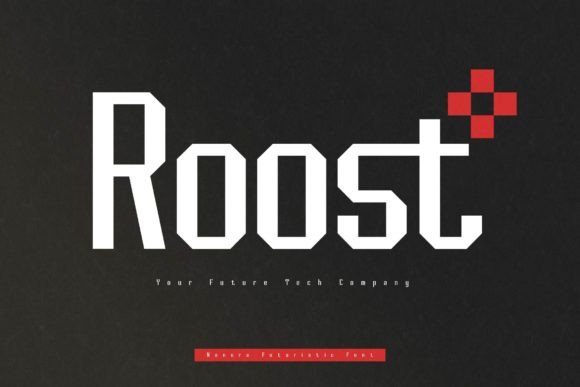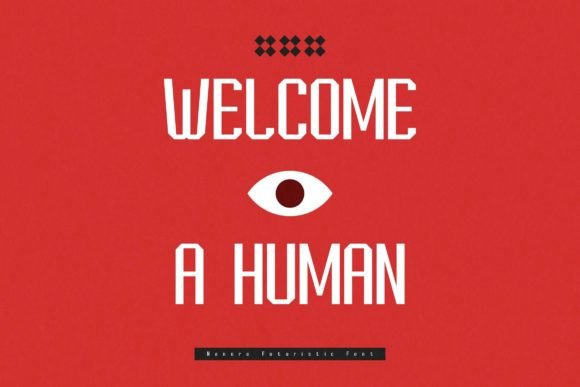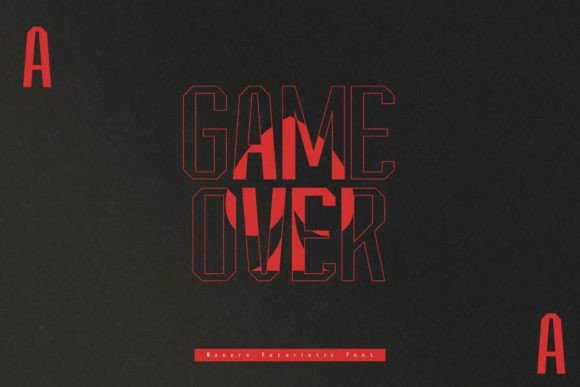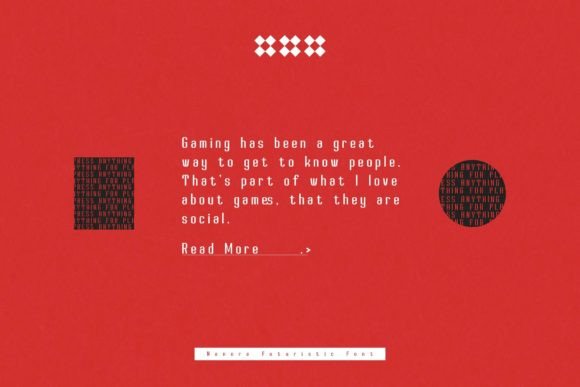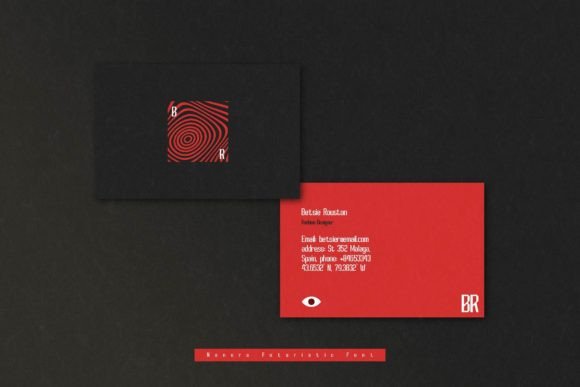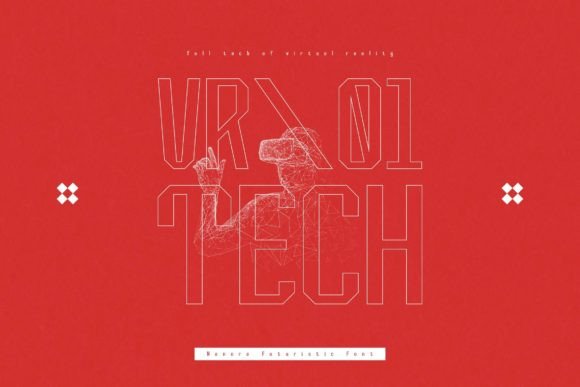
Introduction to Nanora Font
Have you ever been stuck in front of a blank canvas, desperately searching for the perfect font to bring your creative vision to life? I know I have. It’s that moment when everything hangs in the balance, and the right design resource can make all the difference. For designers, finding a font that perfectly captures the essence of their project can be a game-changer.
Enter the Nanora Font, a sleek and modern sans-serif font that’s about to revolutionize the way you approach your next creative project. With its futuristic style and clean lines, this font is perfect for designs that want to feel advanced and cutting-edge. Whether you’re working on a tech-related project, a sci-fi theme, or anything that needs a forward-thinking, high-tech vibe, the Nanora Font is an excellent choice.
Key Features of Nanora Font
- High-quality design: Nanora Font offers a sophisticated and elegant look perfect for creative projects.
- Unique characteristics: The font features a unique blend of modern and vintage elements, setting it apart from other design fonts.
Honest Review: Nanora Font
As a designer, I’m always on the lookout for high-quality fonts to elevate my creative projects. Recently, I had the chance to work with the Nanora Font, and I’m excited to share my thoughts.
- Unique, elegant design: Nanora Font’s distinctive style makes it perfect for projects that require a touch of sophistication.
- High-quality vectors: The font’s crisp, clean lines and smooth curves ensure that it looks great at any resolution.
While I was generally impressed with the Nanora Font, I did notice a few limitations:
- Limited character set: The font only includes a basic set of characters, which may not be sufficient for more complex projects.
- Not ideal for body text: The font’s unique style may not be the best choice for large blocks of body text, as it can be difficult to read.
Nanora Font